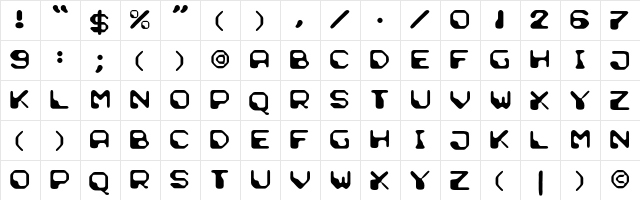
Demun Lotion Normal
Design Context for Demun Lotion Typeface
Demun Lotion takes a measured approach to typography — its balanced proportions and neutral character make it a reliable workhorse for both digital and print work.
Pro Tip: Pair Demun Lotion with a font of contrasting weight or personality to build a more expressive typographic hierarchy.